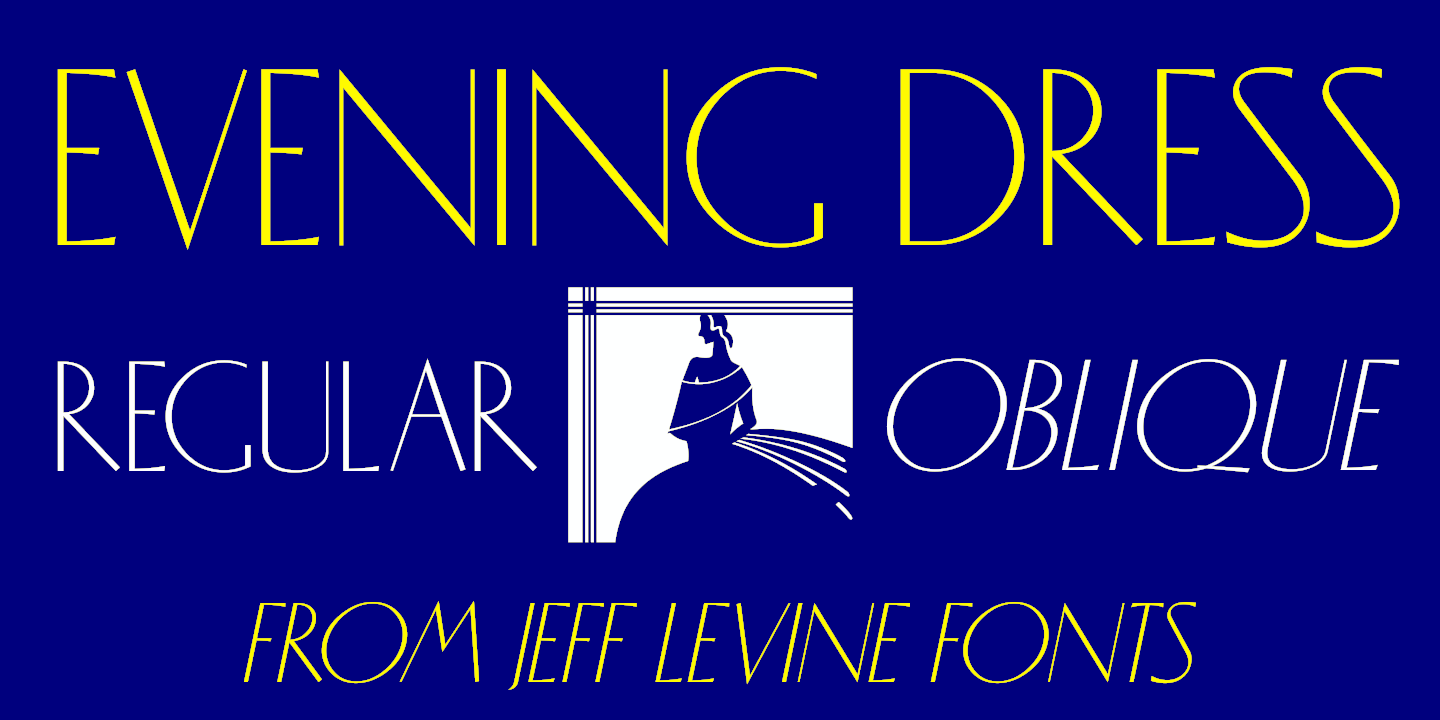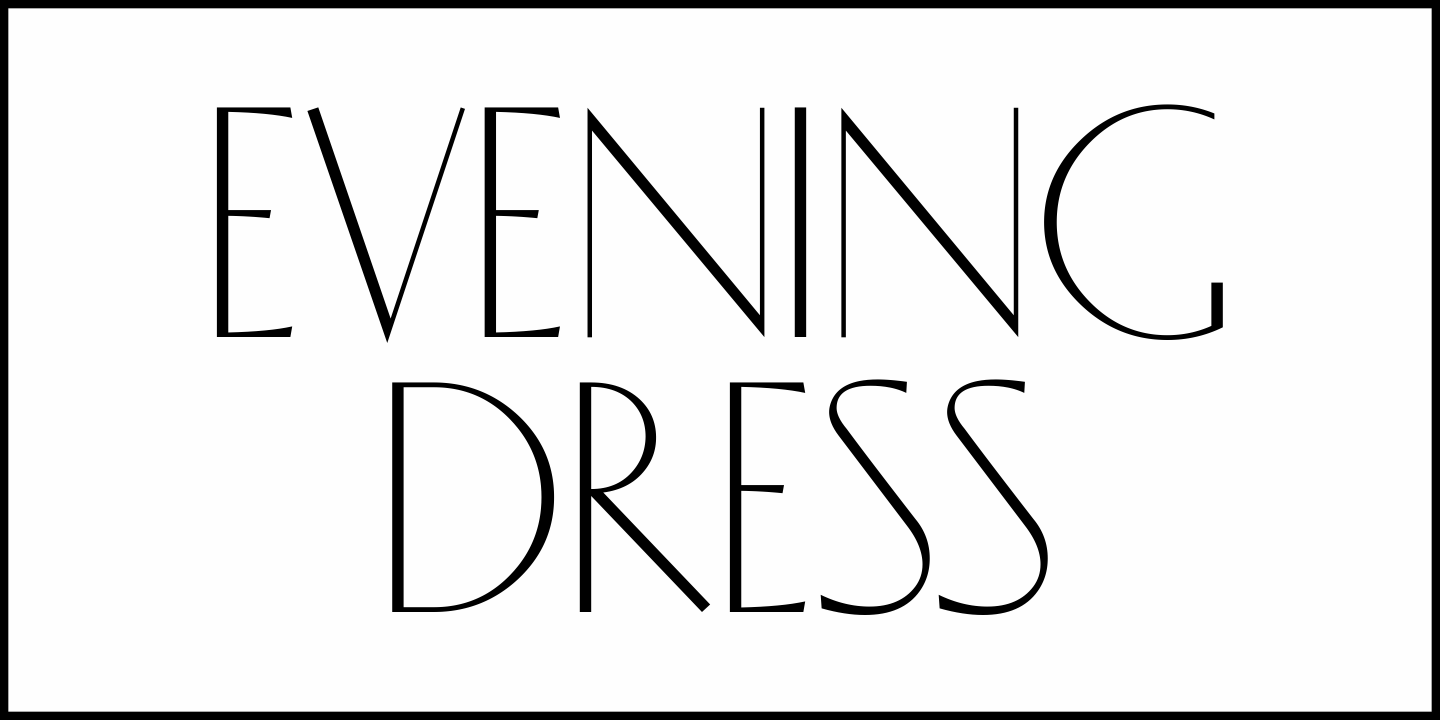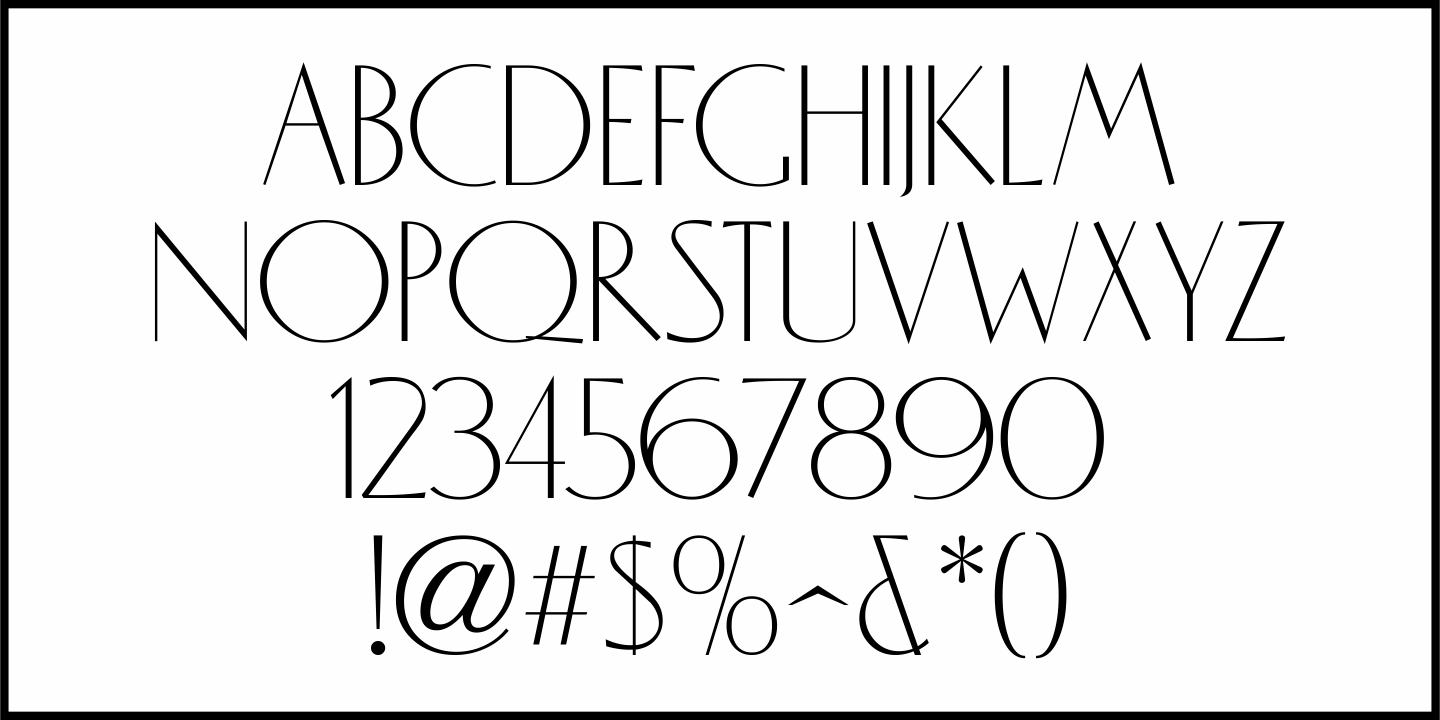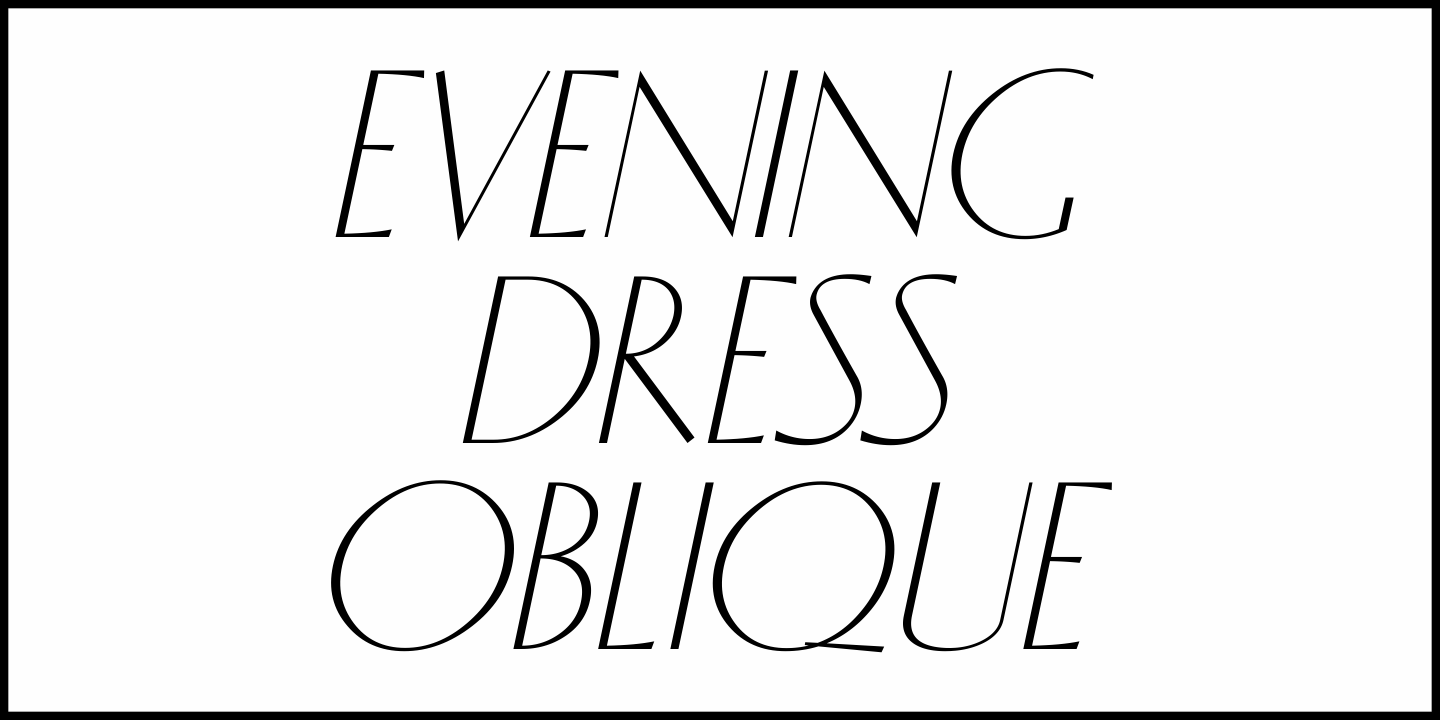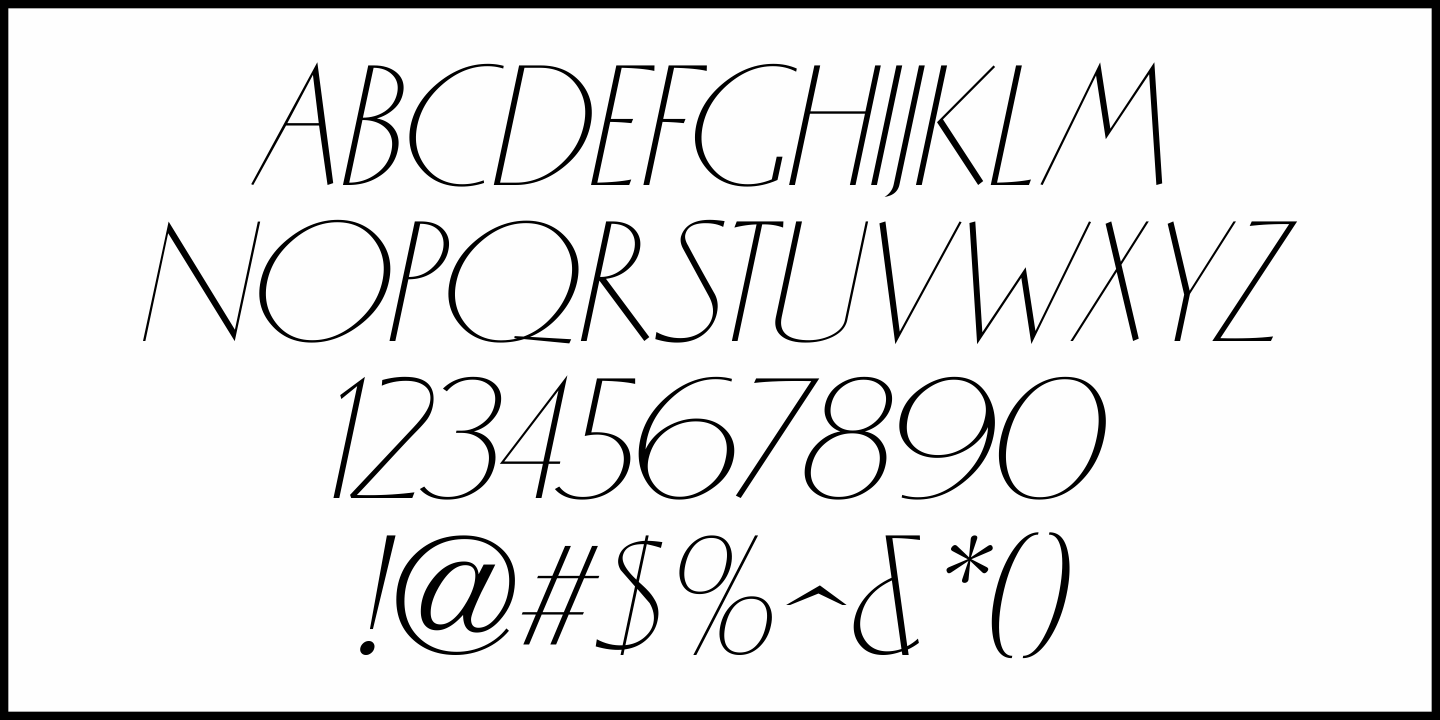
Evening Dress
Thin, elegant and thoroughly Art Deco is the thick-and-thin (slightly flared) alphabet found on page 31 of Samuel Welo's 1930 instructional book 'Lettering Practical and Foreign”.
Redrawn digitally as Evening Dress JNL, it is available in both regular and oblique versions.
Evening Dress JNL Regular by Jeff Levine Fonts